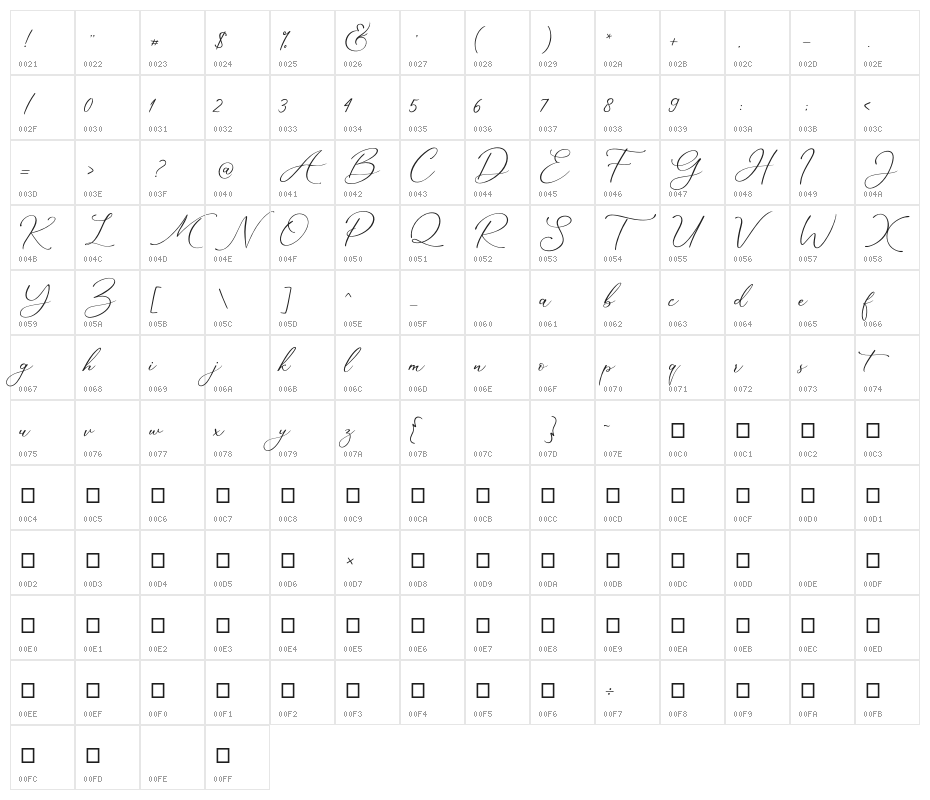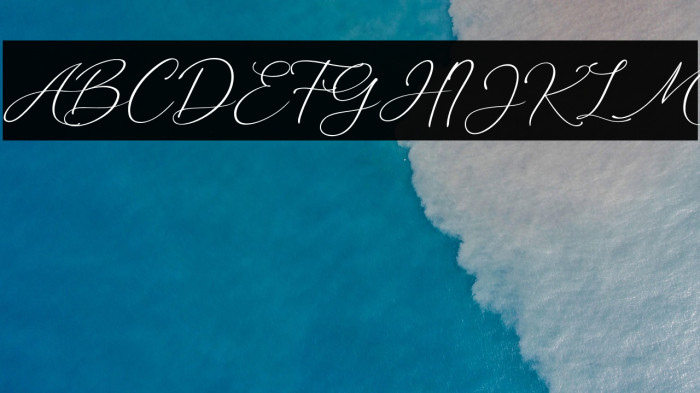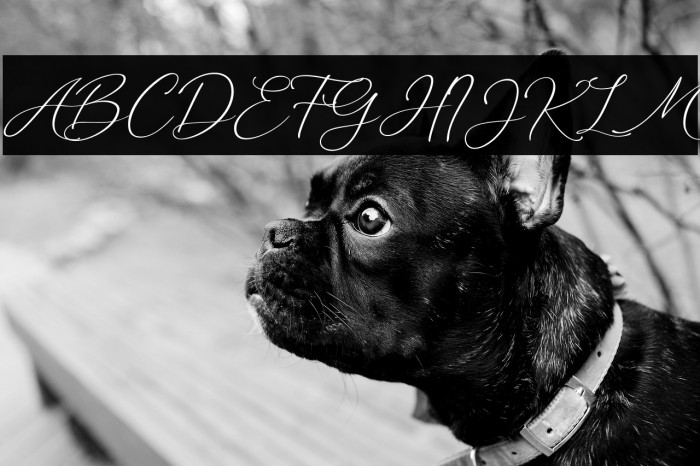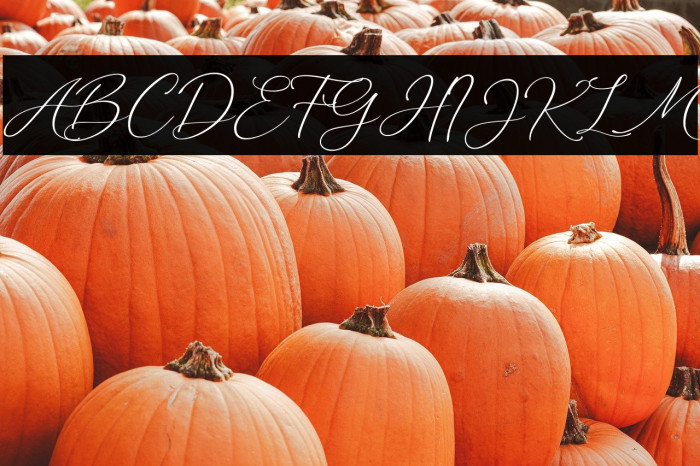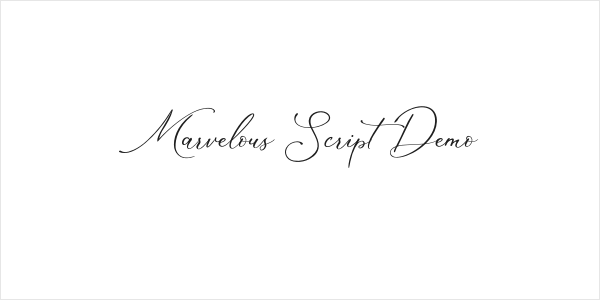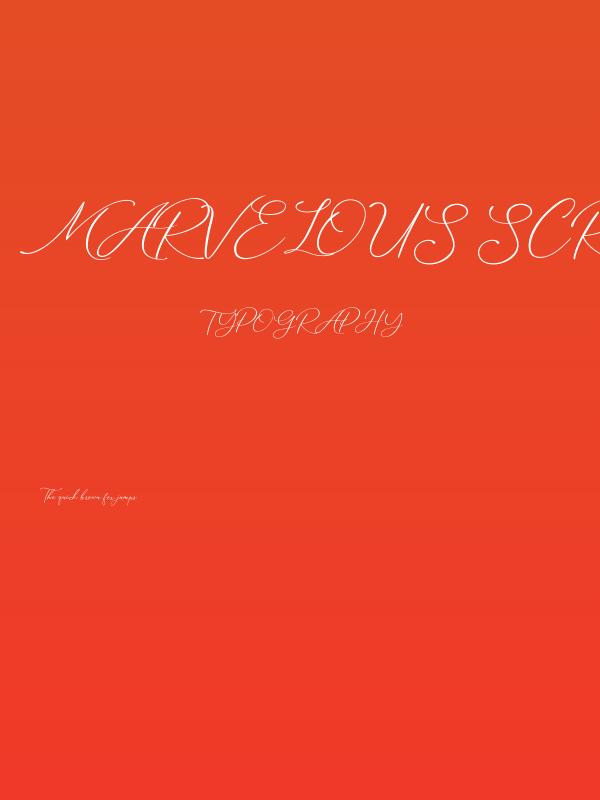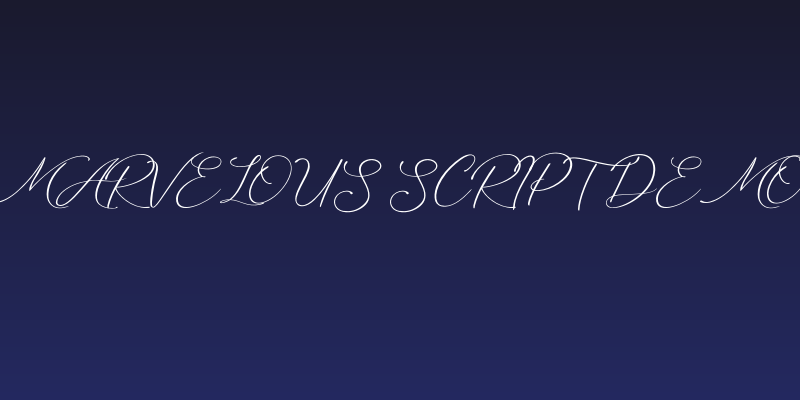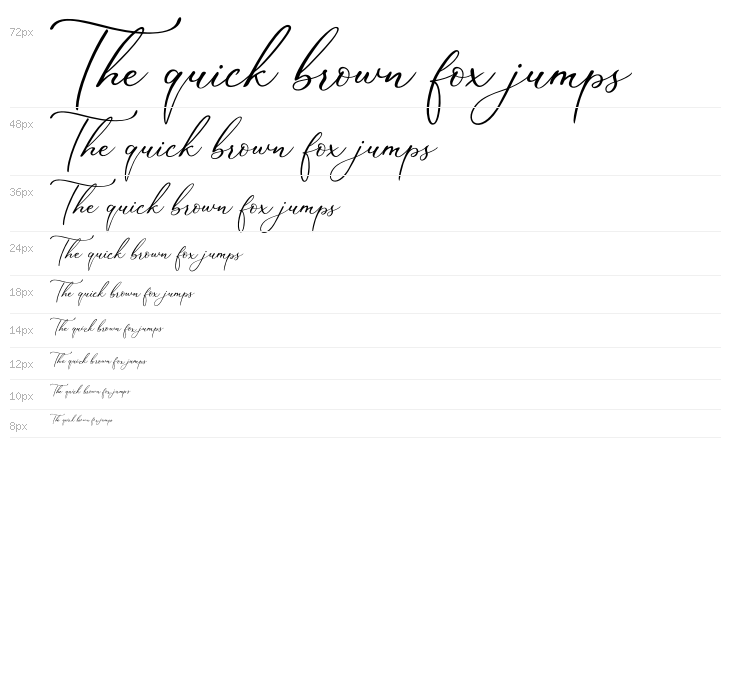
Marvelous Script Demo Font
Marvelous Script Demo Description
This elegant script font features flowing, interconnected letters that exude a sense of sophistication and grace. The uppercase letters are characterized by sweeping curves and flourishes, while the lowercase letters maintain a consistent fluidity, enhancing readability. The numerals and special characters are crafted with the same attention to detail, ensuring a cohesive look across all elements. The font's delicate strokes and high contrast between thick and thin lines give it a refined appearance, making it ideal for formal invitations, branding, and decorative purposes.
| Overall Style | Elegant, Decorative |
| Use Case | Invitations, Branding, Decorative text |
| Proposed Projects | Ideal for wedding invitations, luxury branding, elegant stationery, and decorative headings. |